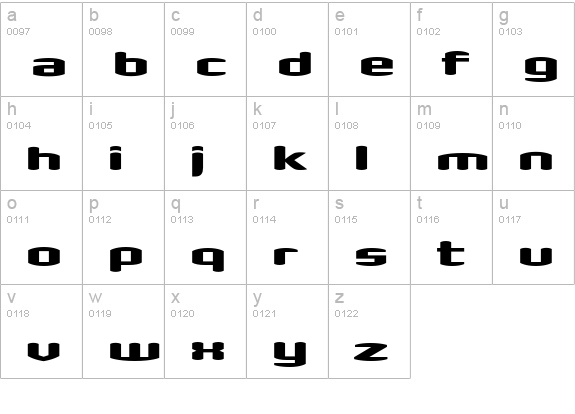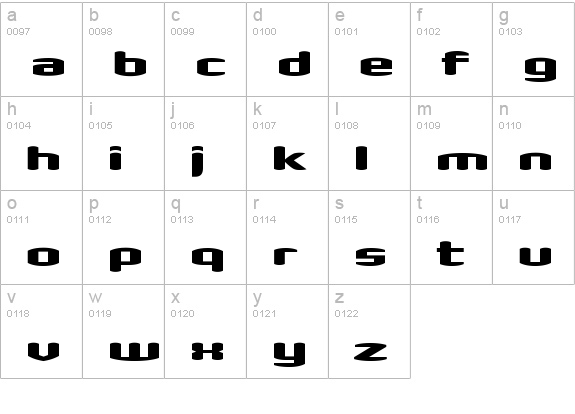
Shimano-RoundBlack Font Details
Shimano-RoundBlack font is a visually stunning and modern typeface that exudes a sense of sophistication and elegance. Its rounded edges and bold letterforms give it a unique and contemporary look, making it perfect for a wide range of design projects. This font is not only aesthetically pleasing but also highly versatile. Whether you're designing a logo, creating a website, or crafting a poster, Shimano-RoundBlack font will make your text stand out and leave a lasting impression on your audience. One of the best things about Shimano-RoundBlack font is that it is freely available to download at FontsMarket.com. This means that you can use this font in your personal and commercial projects without any restrictions or limitations. Whether you're a professional designer or a hobbyist, this font offers you the freedom to bring your creative visions to life. With its bold and eye-catching design, Shimano-RoundBlack font is sure to make a lasting impact on any project. So why wait? Go ahead and download this font from FontsMarket.com today and unleash your creativity with this exceptional typeface.